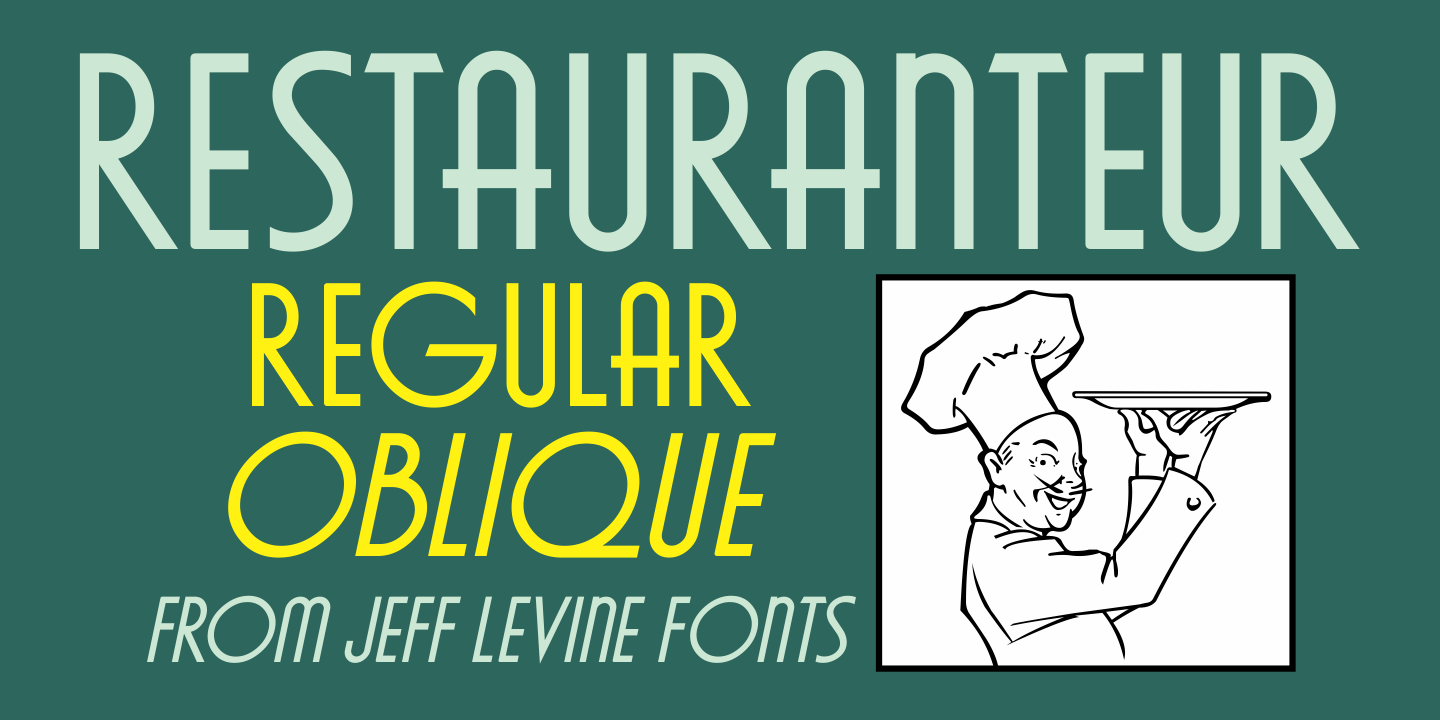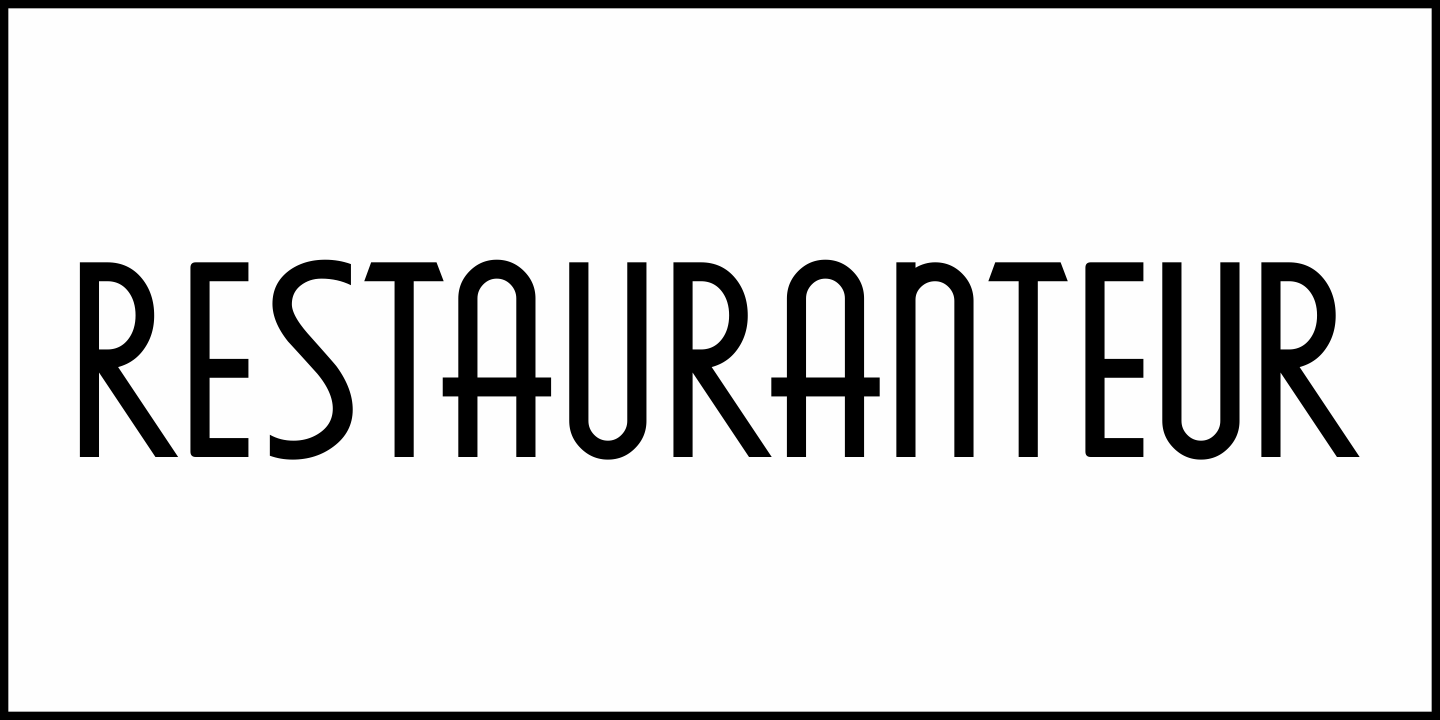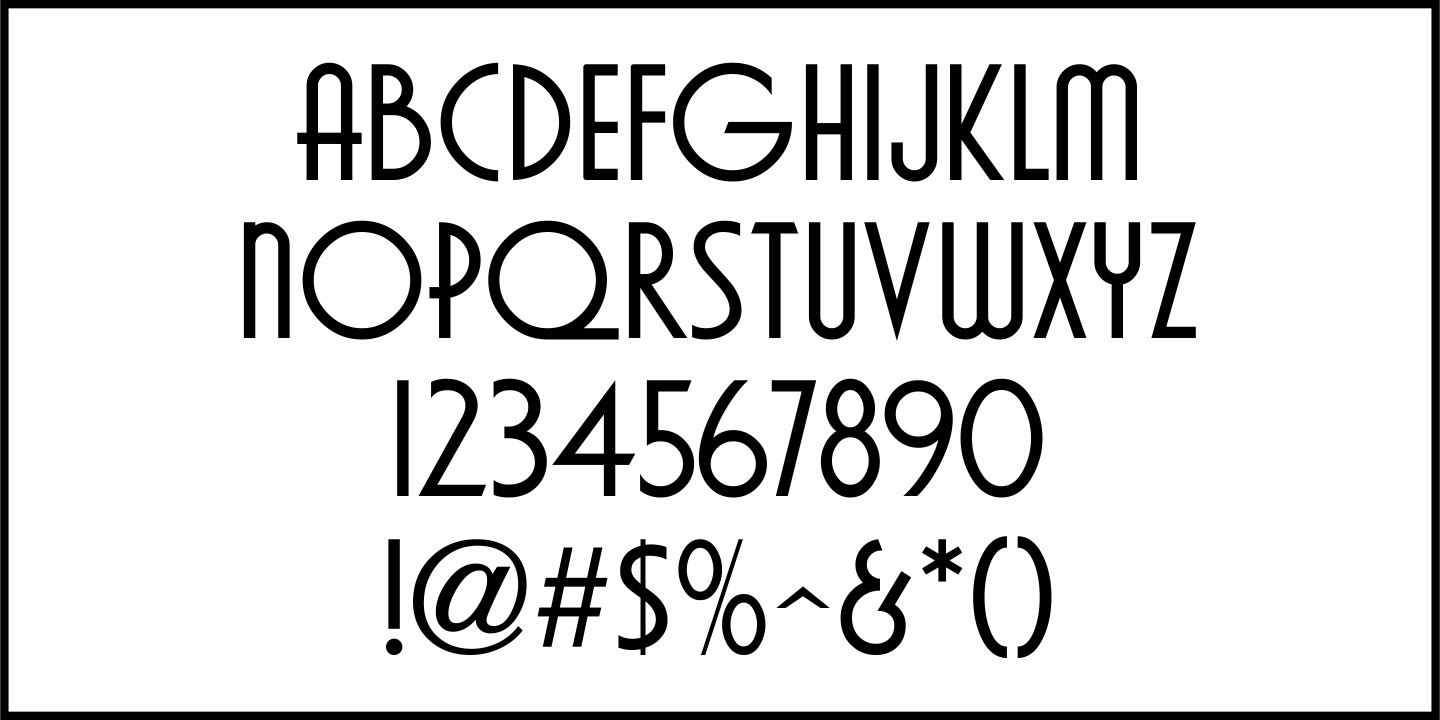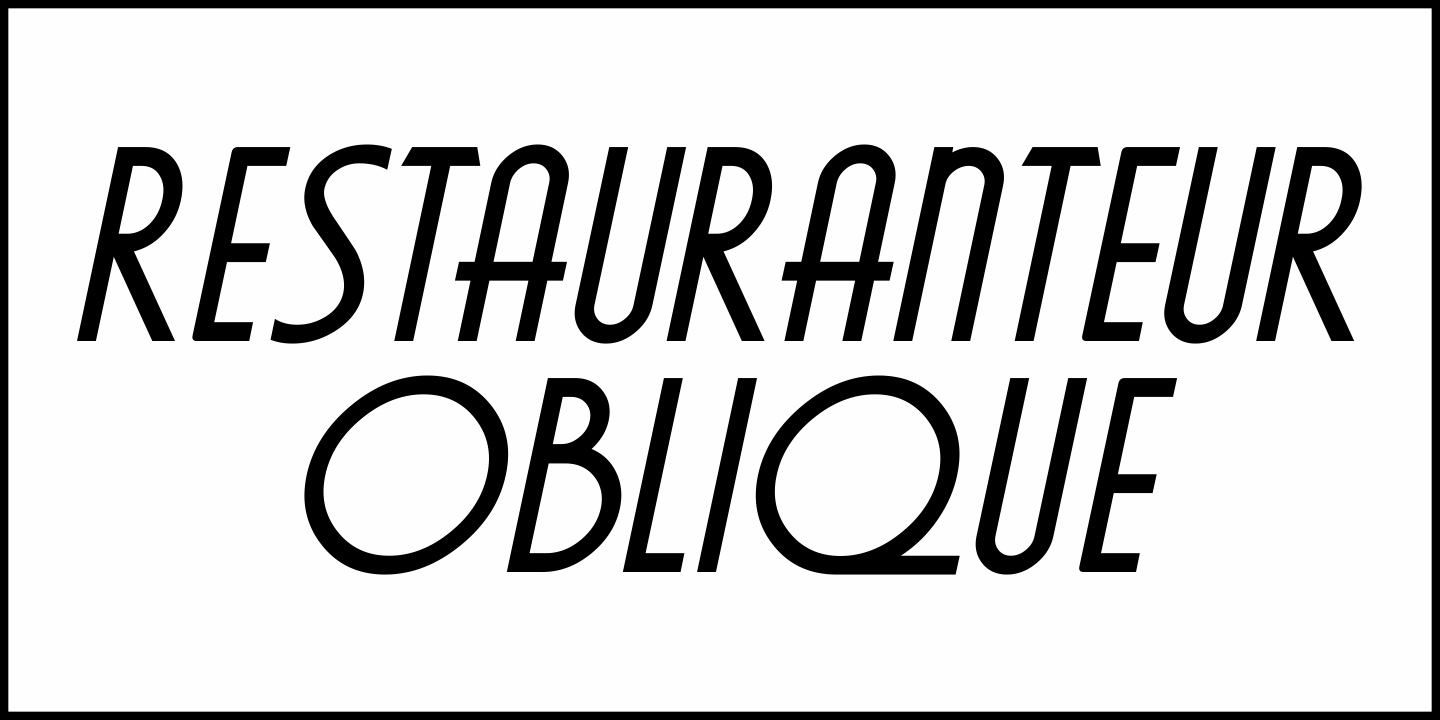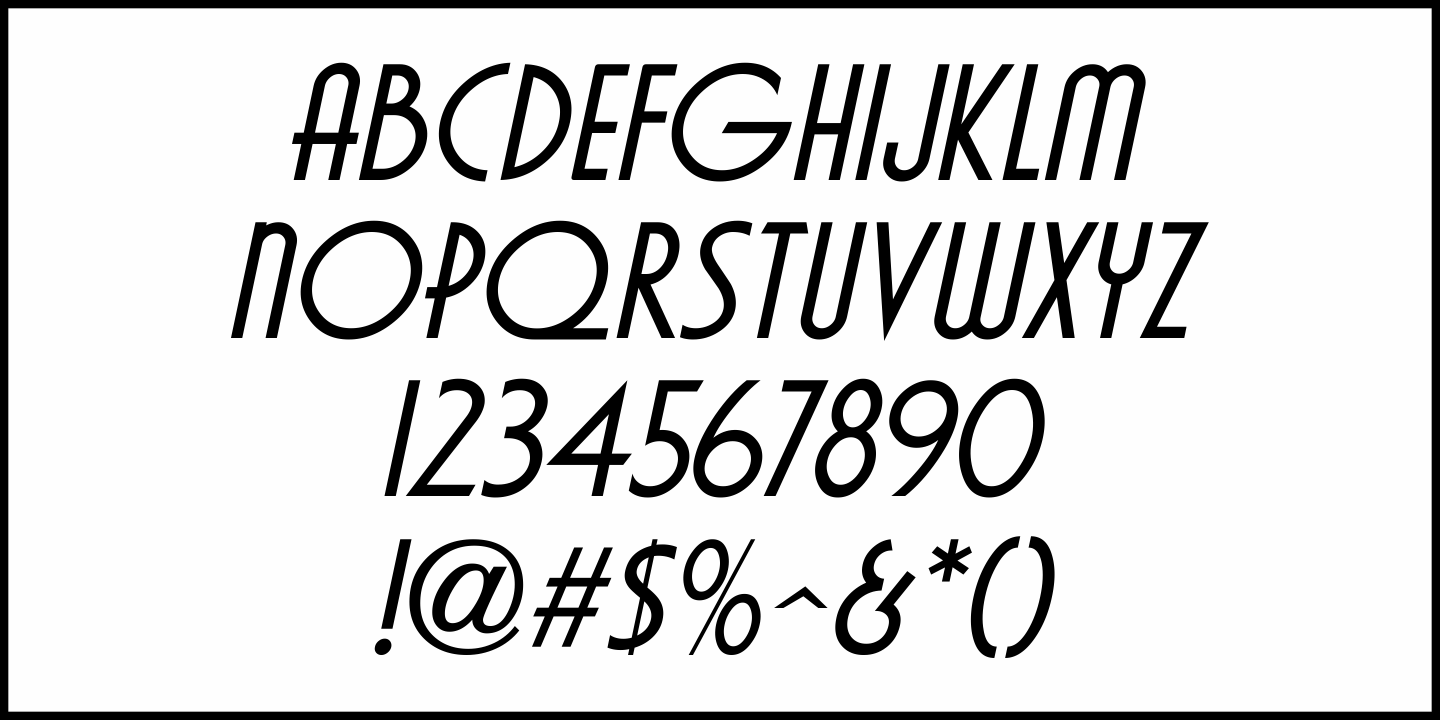
Restauranteur
The 1960 revised edition of Sam Welo's 'Studio Handbook – Letter and Design for Artists and Advertisers' showcased a beautiful, semi-condensed Art Deco alphabet called 'Modern Gothic'.
It has been digitally redrawn and is available as Restauranteur JNL in both regular and oblique versions.